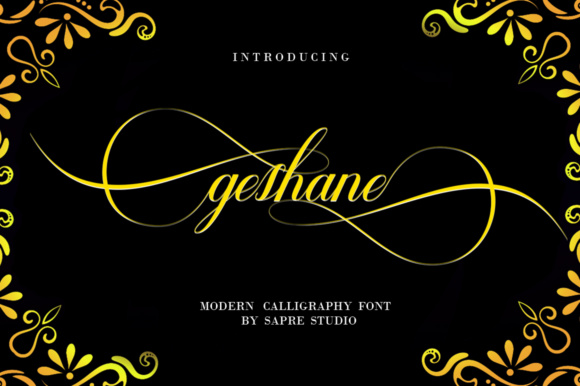
Dive into the world of elegance and sophistication with Geshane Font, a breathtaking script font crafted by the skillful hands of sapre.studio. This font exudes an aura of grace and charm that will elevate your creative projects to new heights.
With its wide kerning, Geshane Font ensures optimal readability and visual appeal, making it an ideal choice for formal invitations, wedding announcements, logos, and any occasion demanding a touch of class. Whether you're a seasoned designer or just starting your creative journey, Geshane Font will effortlessly enhance your designs.
Experience the allure of Geshane Font and unlock a world of possibilities. Its delicate strokes and sweeping curves will add a touch of refinement and elegance to your designs, capturing the attention of your audience. Let your creativity flourish as you explore the endless possibilities that Geshane Font has to offer.
Don't settle for ordinary fonts; embrace the extraordinary with Geshane Font. Its timeless beauty and versatility will undoubtedly leave a lasting impression. Embark on a creative journey where elegance and sophistication reign supreme. Discover the magic of Geshane Font today!